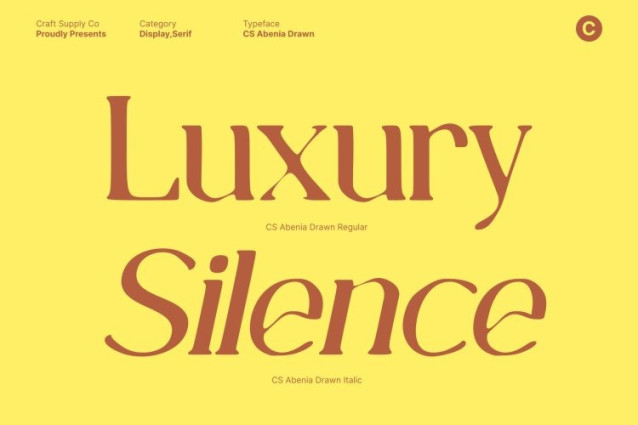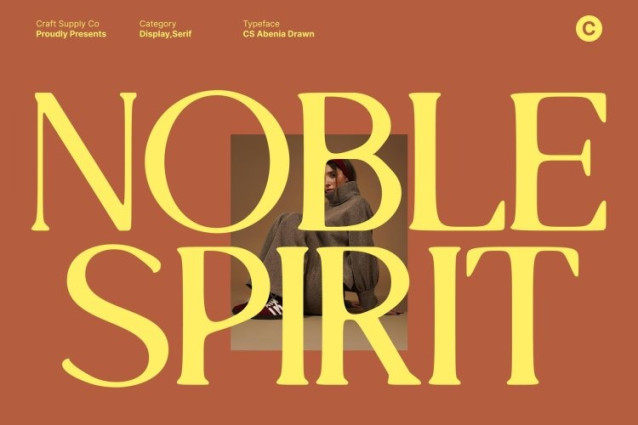
CS Abenia Drawn Font
CS Abenia Drawn Font This is an elegant serif typeface that combines classic sophistication with subtle hand-drawn texture. Its well-proportioned letterforms and graceful serif details create a polished, refined appearance that feels both timeless and contemporary. Each character is crafted with precision, delivering a smooth rhythm that communicates confidence, elegance, and high-end appeal.
Stylish Structure with Contemporary Nuance
While rooted in traditional serif design, this font introduces modern construction and subtle handcrafted details. The drawn texture adds personality and warmth, making the font feel fresh and stylish without losing its classic elegance. This balance ensures versatility across a wide range of design applications.
Designed for Premium Visual Communication
Perfect for branding, fashion campaigns, editorials, and creative layouts, this font elevates headlines, logos, packaging, and promotional materials with a refined presence. Its hand-drawn character adds a bespoke quality that enhances exclusivity and sophistication, whether in print or digital media.
Ideal for Luxury and Creative Projects
This font provides designers with a serif typeface that is both luxurious and expressive. It delivers a confident, graceful typographic voice, transforming content into a visually refined experience. Perfect for high-end branding, artistic editorial work, and lifestyle visuals, it leaves a lasting impression of elegance and style.